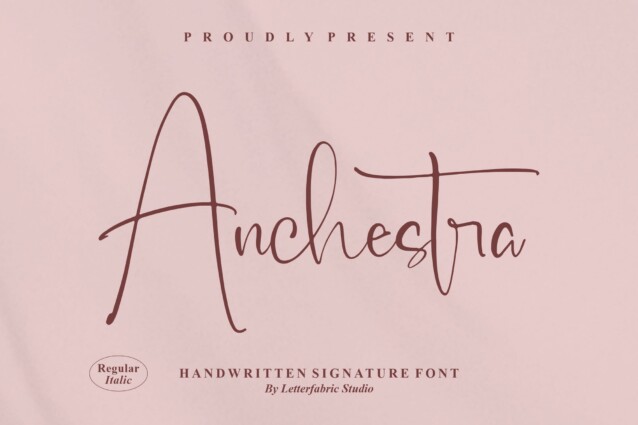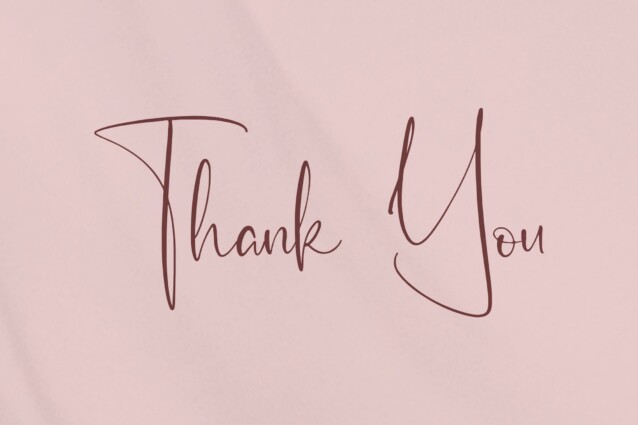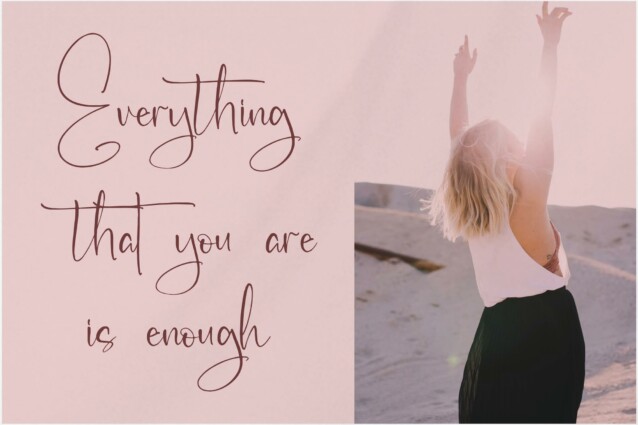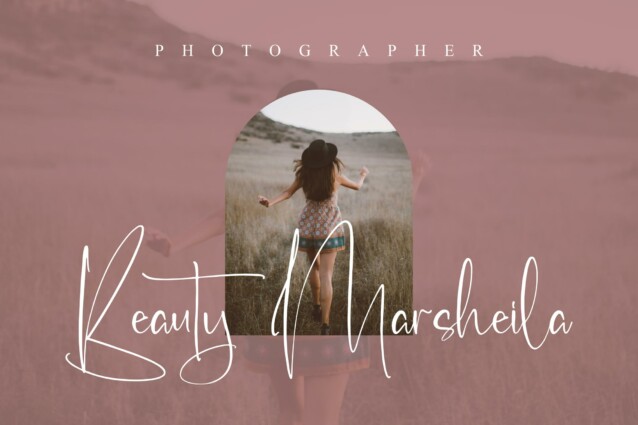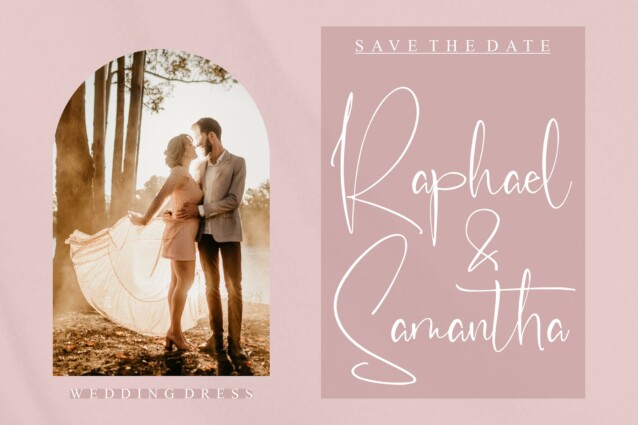
Anchestra Font
Anchestra Font is a Handwritten Signature Font, suitable for any projects such as: logos, branding projects, homeware designs, product packaging, mugs, quotes, posters, shopping bags, t-shirts, book covers, name card, invitation cards, greeting cards, label, photography, watermark, special events, and all your other lovely projects that need a beautiful script taste.